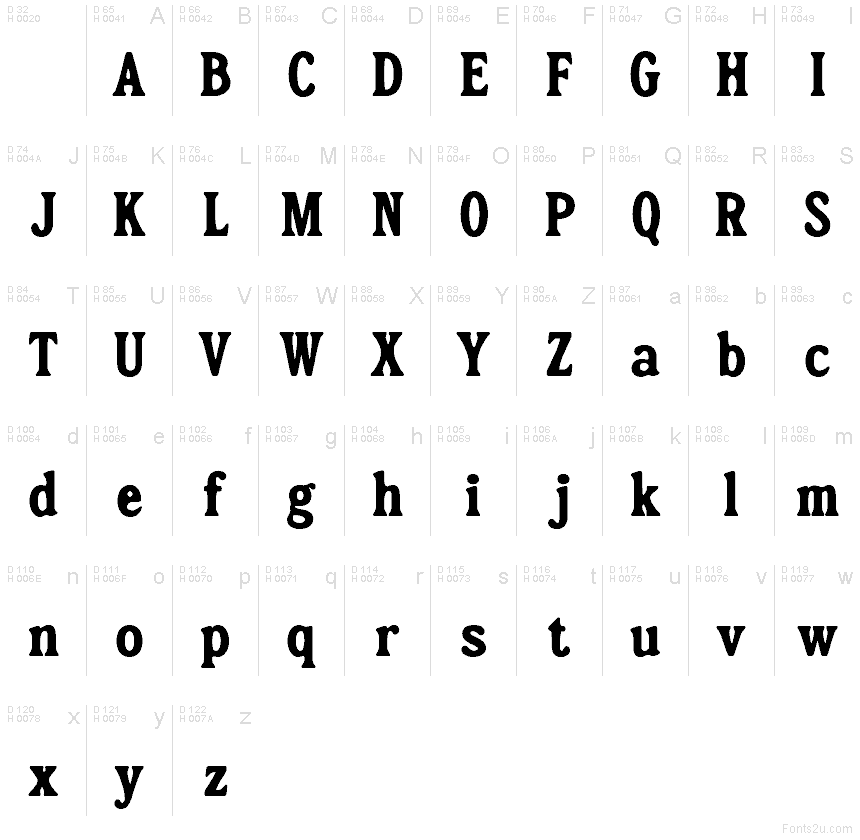
CS Maisy Drawn font by Craft Supply Co. is a free bold hand-drawn serif display font from the CS Maisy family that solves a familiar dilemma: you want friendly warmth without losing headline punch. Its thick, softly rounded serifs, slightly wobbly contours, and inky edges read as human and crafted, while the sturdy proportions and generous counters keep lines crisp and legible at larger sizes.
Using CS Maisy Drawn, titles land with charming confidence—great for café menus, craft packaging, indie posters, playful book covers, social quote graphics, and kids’ branding. The rhythm is compact but breathable, so words cluster nicely without clogging. For a simple pairing, set body text in a clean geometric sans and let this free font handle the headlines; bump tracking a hair when used on textured backgrounds.